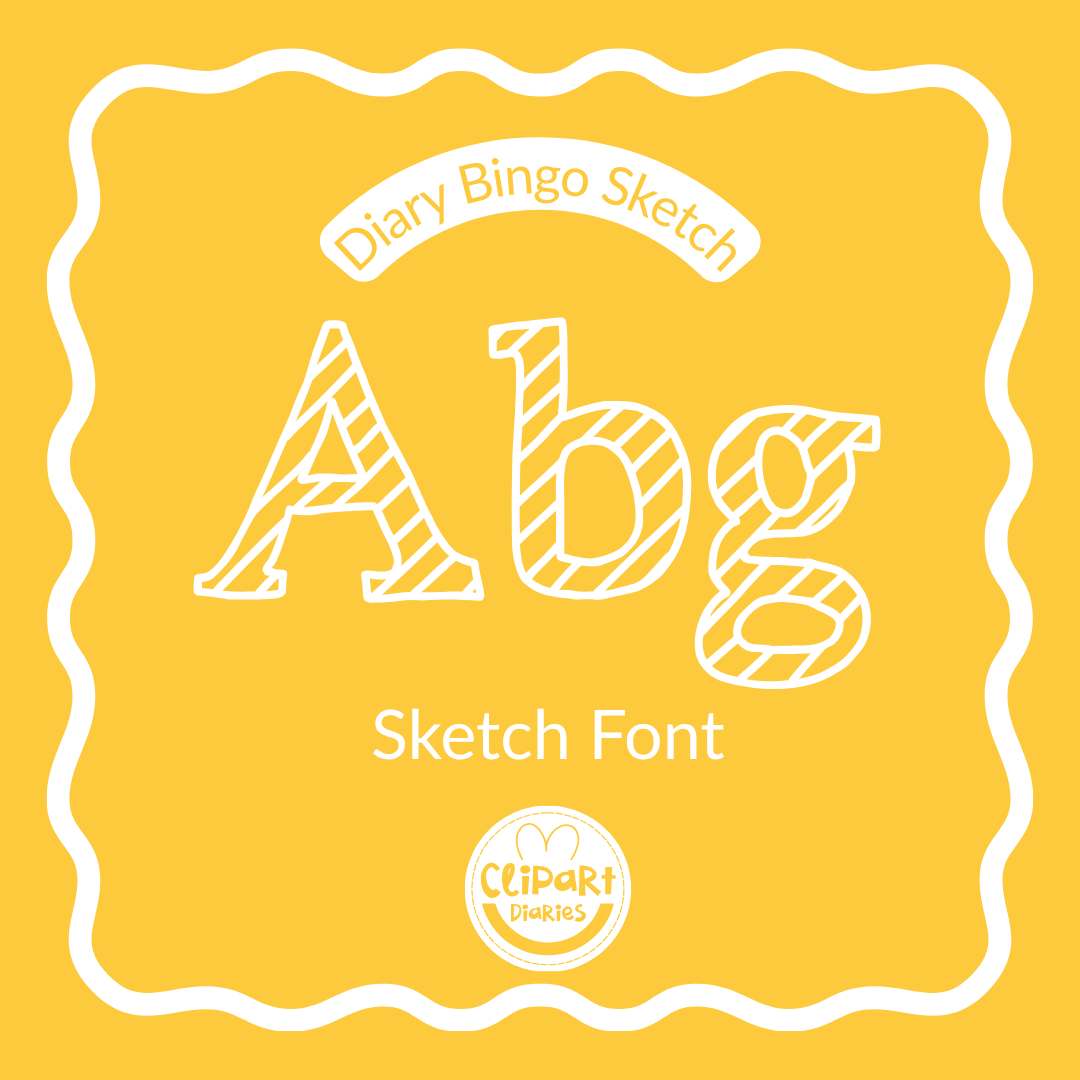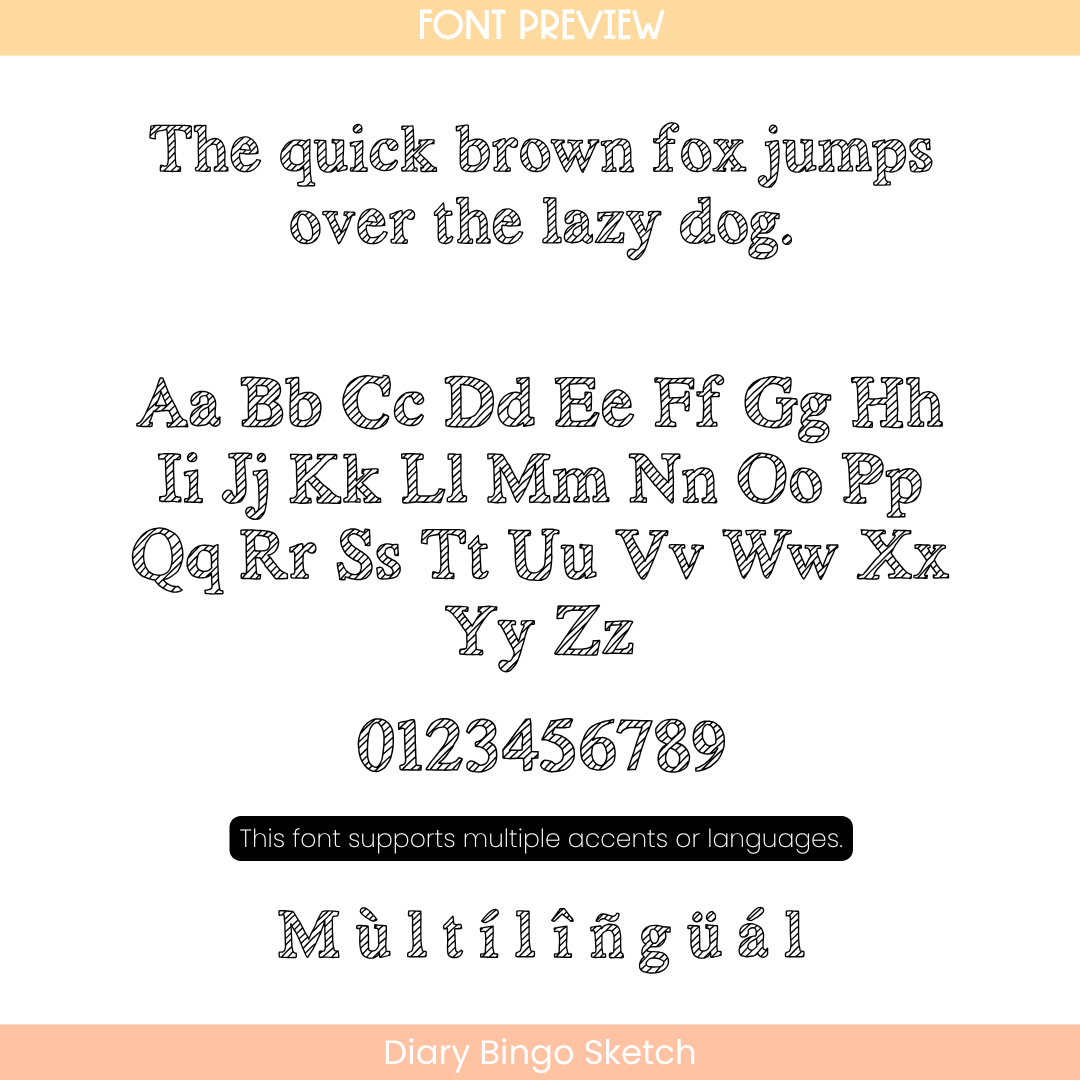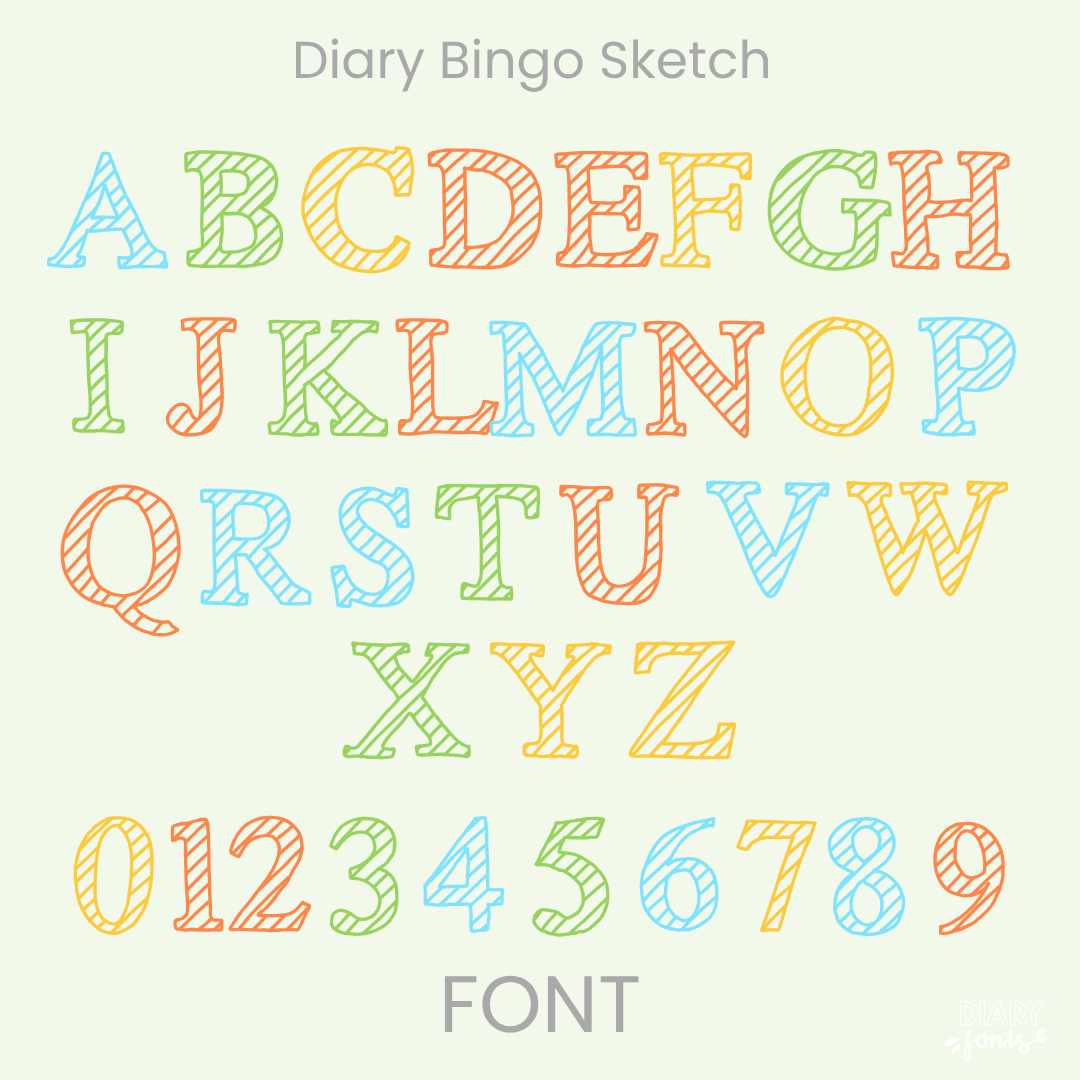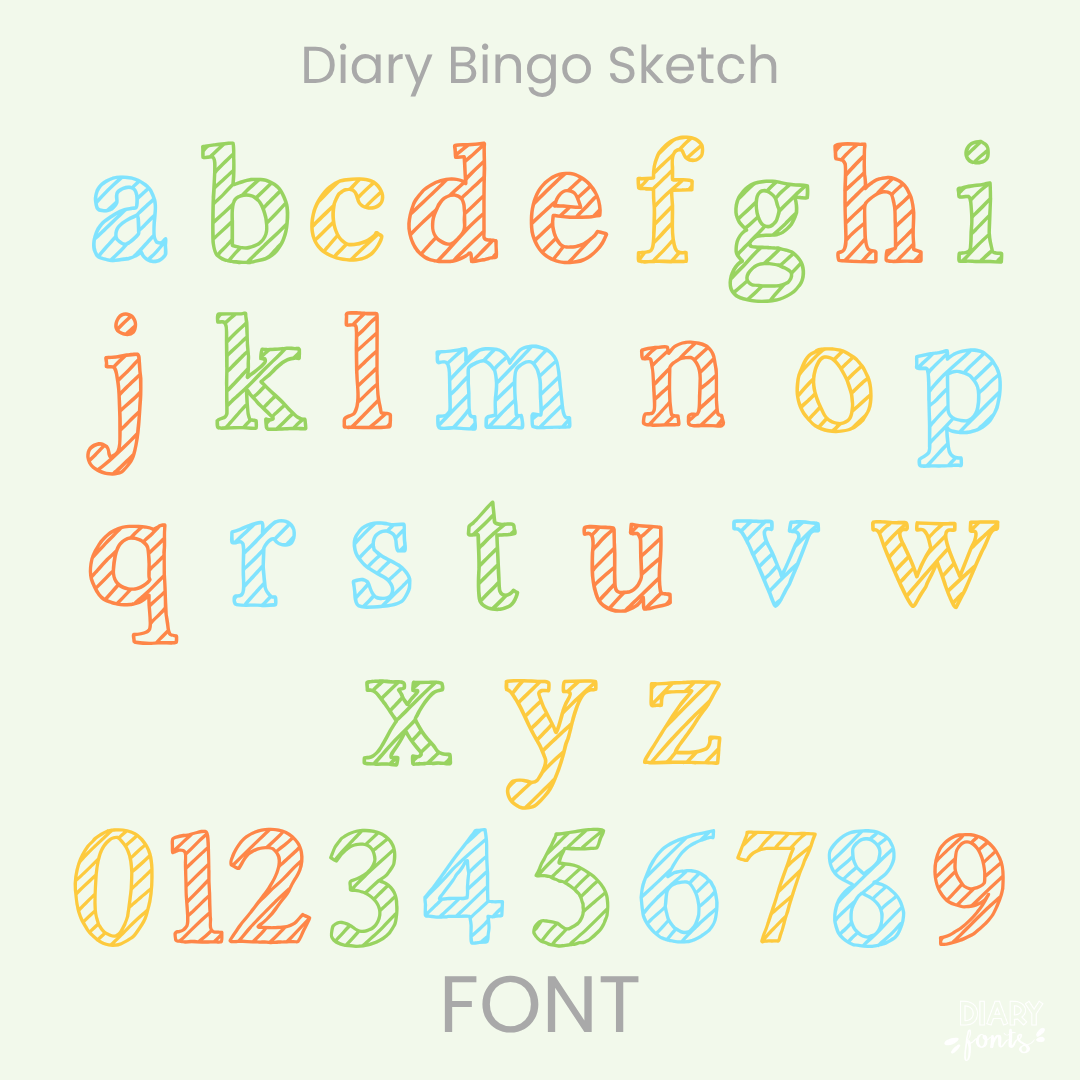
Add a creative, “hand-sketched” flair to your designs with Diary Bingo Sketch, a distinctive font that combines a structured serif foundation with a textured, artistic finish. This comprehensive typeface includes a complete set of uppercase and lowercase letters, numbers 0–9, and multi-language support for various accents, making it a versatile choice for global educational content. It is specifically optimized for seamless compatibility with Canva, MS Office, and Adobe Apps, as well as popular iPad tools like GoodNotes and Procreate. Whether you are creating eye-catching classroom headers, artistic worksheets, or personalized digital planners, Diary Bingo Sketch offers a polished, professional look that is ideal for both personal and commercial use.